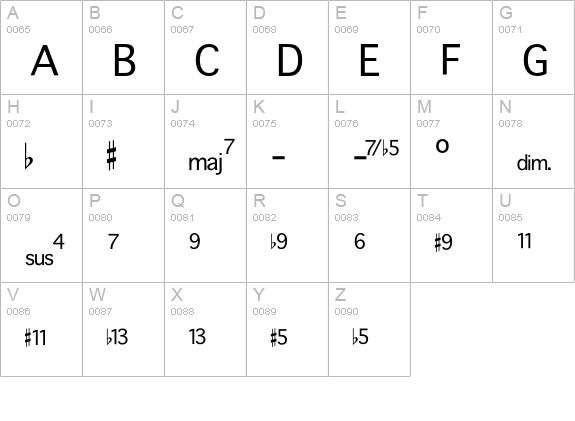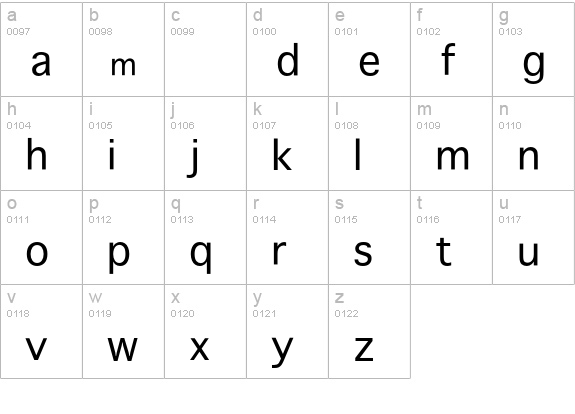
NChords Font Details
NChords font is a versatile and elegant typeface that is perfect for a wide range of design projects. Its sleek and modern design will add a touch of sophistication to any text or headline. With its clean lines and balanced proportions, NChords font is a great choice for both digital and print media. What makes NChords font even more appealing is that it is available for free download at FontsMarket.com. This means you can easily access this high-quality font without any cost, making it a fantastic option for designers on a budget or anyone looking to enhance their creative projects with a premium typeface. Whether you are working on branding, marketing materials, web design, or any other creative endeavor, NChords font offers a timeless and stylish solution that will elevate your work to the next level. Download NChords font for free today and bring a touch of sophistication to your designs.